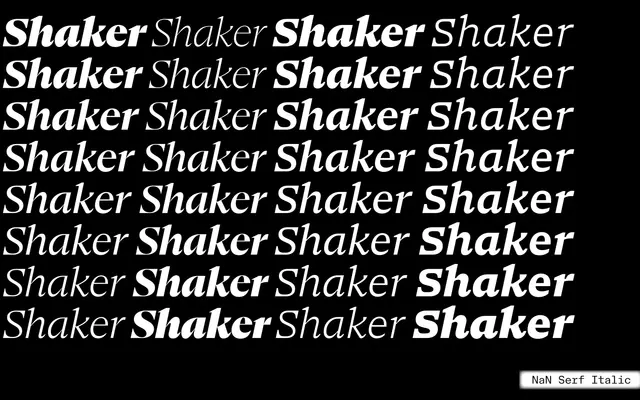
NaN Serf
NaN · Daria Cohen, Fadhl Haqq, Léon Hugues, Jean-Baptiste Morizot, Luke Prowse, Florian Runge · 2022
A contemporary old-style serif from NaN spanning four optical sizes and eight weights, with two stylistic variants distinguishing squared and rounded punctuation.
Designed across Display, Headline, Text and Micro optical sizes, the family uses perpendicular terminals and open counters to give old-style structure a sharp, vectorial quality that reads cleanly on screen and in print alike. Eight weights per optical size provide broad compositional range, and the addition of italics in version 1.1 completes a thorough typographic system. Two versions — Serf A with stylised squared punctuation and Serf B with traditional rounded forms — give designers a meaningful choice of graphic register within the same skeleton.
NaN describe it as a present-day old-style serif with orthogonal, perpendicular terminals and open counters — placing it squarely in the humanist old-style tradition but with a deliberate vectorial, geometric sharpness that modernises the genre.